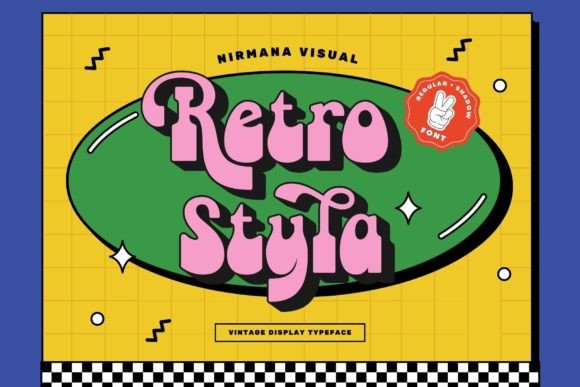
Retro Styla: A Versatile Display Font for Modern Designers
If you're in the design world, whether professionally or as a hobbyist, you understand the power of typography. The right font can transform a simple message into something memorable, evoke emotion, and even define a brand's identity. Enter Retro Styla, a display font that channels the bold, expressive spirit of the â70s while offering the flexibility needed for todayâs creative demands. Itâs not just about nostalgiaâitâs about harnessing the visual energy of a bygone era to create impactful modern designs.
What Is Retro Styla?
Retro Styla is a stylized typeface designed with retro charm at its core. Inspired by the typographic trends of the 1970sâthink psychedelic posters, vintage logos, and hand-drawn letteringâthis font brings a warm, artistic flair to any project. Unlike many fonts that lean too heavily on one aesthetic, Retro Styla strikes a balance between whimsy and professionalism, making it suitable for both personal and commercial use.
Itâs a true all-rounder when it comes to display purposes. With carefully crafted characters and a harmonious rhythm, this font doesnât just stand out; it speaks volumes. Whether you're designing a logo, crafting social media content, or putting together an advertisement, Retro Styla offers a unique visual language that can enhance your message and capture attention.
Key Characteristics of Retro Styla
- Distinctive Letterforms: Each character is infused with a sense of movement and individuality, reminiscent of the eraâs love for experimentation and expression.
- High Readability at Larger Sizes: While itâs a decorative font, Retro Styla remains highly legible when used appropriatelyâespecially in headlines, titles, and signage.
- Color-Friendly Design: The contrast and spacing within the font make it ideal for use in multi-color compositions, allowing it to pop without overwhelming the viewer.
- Comprehensive Character Set: Retro Styla includes extended Latin support, ligatures, alternate glyphs, and symbols, giving designers more creative control and flexibility.
- Scalable for Various Uses: From large-scale billboards to compact social media thumbnails, this font maintains its integrity and style across different sizes and mediums.
Why Use Retro Styla in Your Projects?
In todayâs fast-paced digital landscape, standing out is harder than ever. Thatâs where Retro Styla shines. Its retro roots offer a refreshing break from the minimalist and ultra-modern fonts dominating the market. But itâs not just about looking differentâitâs about connecting with audiences in meaningful ways.
For instance, if youâre working on branding for a boutique coffee shop or a retro-themed clothing line, using Retro Styla can instantly give your visuals a sense of authenticity and personality. It adds a layer of storytelling to your designs, helping them resonate more deeply with people who appreciate vintage aesthetics.
Moreover, Retro Styla is particularly effective for eye-catching headlines and promotional materials. Its bold curves and playful edges are perfect for creating visual hierarchy and guiding the viewerâs attention to key messages. When used thoughtfully, it enhances communication rather than hinders it.
Real-World Applications of Retro Styla
The beauty of Retro Styla lies in its versatility. Here are some practical examples of how it can be applied across different industries and projects:
- Branding and Logo Design: For businesses targeting a retro vibe or aiming to stand out in crowded markets, Retro Styla can serve as a strong foundation for logos and brand identities.
- Social Media Content: Marketers and influencers can leverage this font for Instagram banners, Facebook headers, and YouTube thumbnails to add a nostalgic yet modern twist.
- Product Packaging: Especially for food, fashion, and lifestyle products, Retro Styla can help craft packaging that feels handcrafted and authentic.
- Event Posters and Invitations: Music festivals, art shows, and themed events often benefit from the fontâs vibrant and dynamic appearance.
- Editorial Design: Bloggers and publishers can use it for article titles, section headings, or magazine covers to create a distinctive look.
- Web and Mobile UI Elements: When used sparingly, such as for call-to-action buttons or feature highlights, it can elevate user experience by adding visual interest.
Design Considerations When Using Retro Styla
While Retro Styla is visually striking, itâs important to use it strategically. Like any display font, it works best when paired with complementary sans-serif or serif fonts for body text. Overusing it can lead to visual clutter and reduce readability.
Here are a few tips to ensure optimal usage:
- Use it for emphasis: Let Retro Styla take center stage in headlines, taglines, or title cards rather than throughout entire paragraphs.
- Balance with simplicity: Pair it with clean, modern fonts in supporting text to maintain a professional and organized layout.
Ultimately, the best fonts are those that feel natural and purposeful. Retro Styla does exactly thatâit brings a piece of history into your work while staying functional and adaptable. So the next time you need a display font thatâs both stylish and versatile, give Retro Styla a try. You might just find the missing piece of your design puzzle.